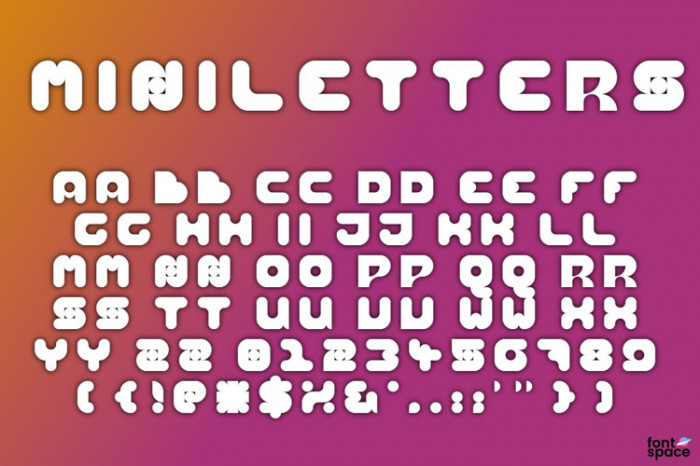
• This is a typeface font with letters confined in a 3x3 grid. I hope you like it! (10 downloads for accents and full More Latin)
• Your simplified lowercase appeals to me the most (since several glyphs would look like a full 3×3 block/wildcard when shrunk in a single bpp). Indeed, your solutions often look the same as pure pixel/dot-based matrix writing characters (3×3, 3×4, 3×5, or wider glyphs).